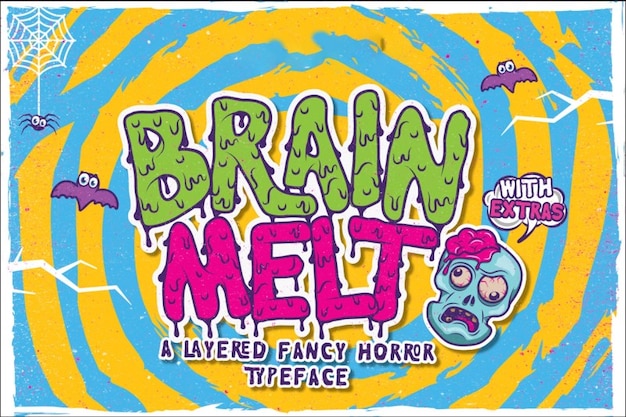
BrainMelt Font
Drizy Studio
BrainMelt font is a spine-tingling journey into the world of Halloween horrors, where letters seem to ooze and melt with spine-chilling fright. Each character is like a ghastly apparition, turning your text into a nightmare-inducing masterpiece. It's the perfect choice when you want to send shivers down spines and make hearts race with fear. BrainMelt is the font that effortlessly blends the macabre with the eerie, making your words a terrifying descent into the dark realms of horror.